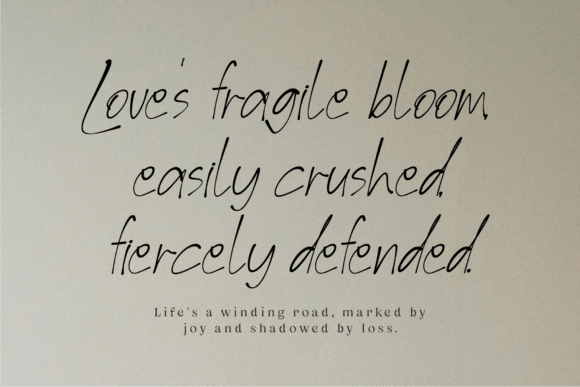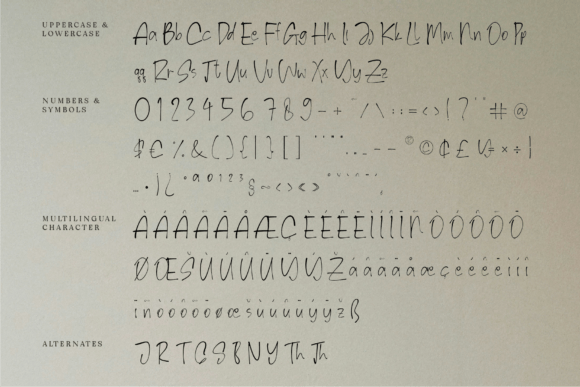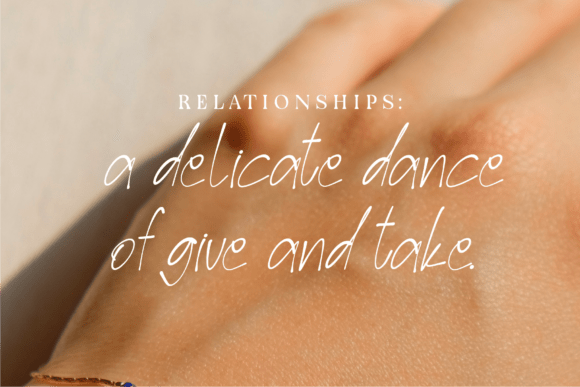
Introduction to Skaley Hand Font
Have you ever been stuck in front of a blank canvas, struggling to find the perfect font to bring your creative project to life? The search for that elusive design element can be frustrating, but what if I told you there’s a solution that’s both elegant and effortless? Enter the Skaley Hand Font, a refined handwritten typeface that’s about to revolutionize your design game.
This beautiful font is more than just a pretty face – it’s a high-quality design resource that’s perfect for branding, logo design, and any project where you want to add a touch of sophistication. With its natural pen flow and clean minimalism, the Skaley Hand Font is the perfect companion for designers who value elegance and professionalism.
Whether you’re working on a free download or a high-end commercial project, the Skaley Hand Font is a versatile tool that will elevate your creative work to new heights. And the best part? Its transparent background makes it easy to use on any design surface, from stationery to photography watermarks. Get ready to experience the power of elegant design with the Skaley Hand Font.
Key Features of Skaley Hand Font
- High-quality design resource ideal for creative projects, including invitations, posters, and more.
- Unique, hand-drawn style with a personal touch, perfect for adding a human element to your design.
- Includes uppercase and lowercase letters, numbers, and punctuation marks for complete versatility.
- Designed to be highly legible, even at small font sizes, making it suitable for a variety of design applications.
Honest Review: Skaley Hand Font
As a designer, I’m always on the lookout for high-quality design resources to elevate my creative projects. Recently, I stumbled upon the Skaley Hand Font, and I’m excited to share my thoughts on this beautiful font.
- ✨ Unique and elegant design that adds a touch of sophistication to any project
- ✨ Perfect for designers who want to create a personal, handwritten feel in their designs
- ✨ High-quality vector file, allowing for crisp and clear rendering on any device
- ⚠️ Limited language support, making it less suitable for projects that require multilingual text
Common Use Cases for Skaley Hand Font
The Skaley Hand Font is suitable for a variety of creative projects, including invitations, menus, and signage. Its unique design and transparent background make it an ideal choice for designers looking for a distinctive and versatile font.